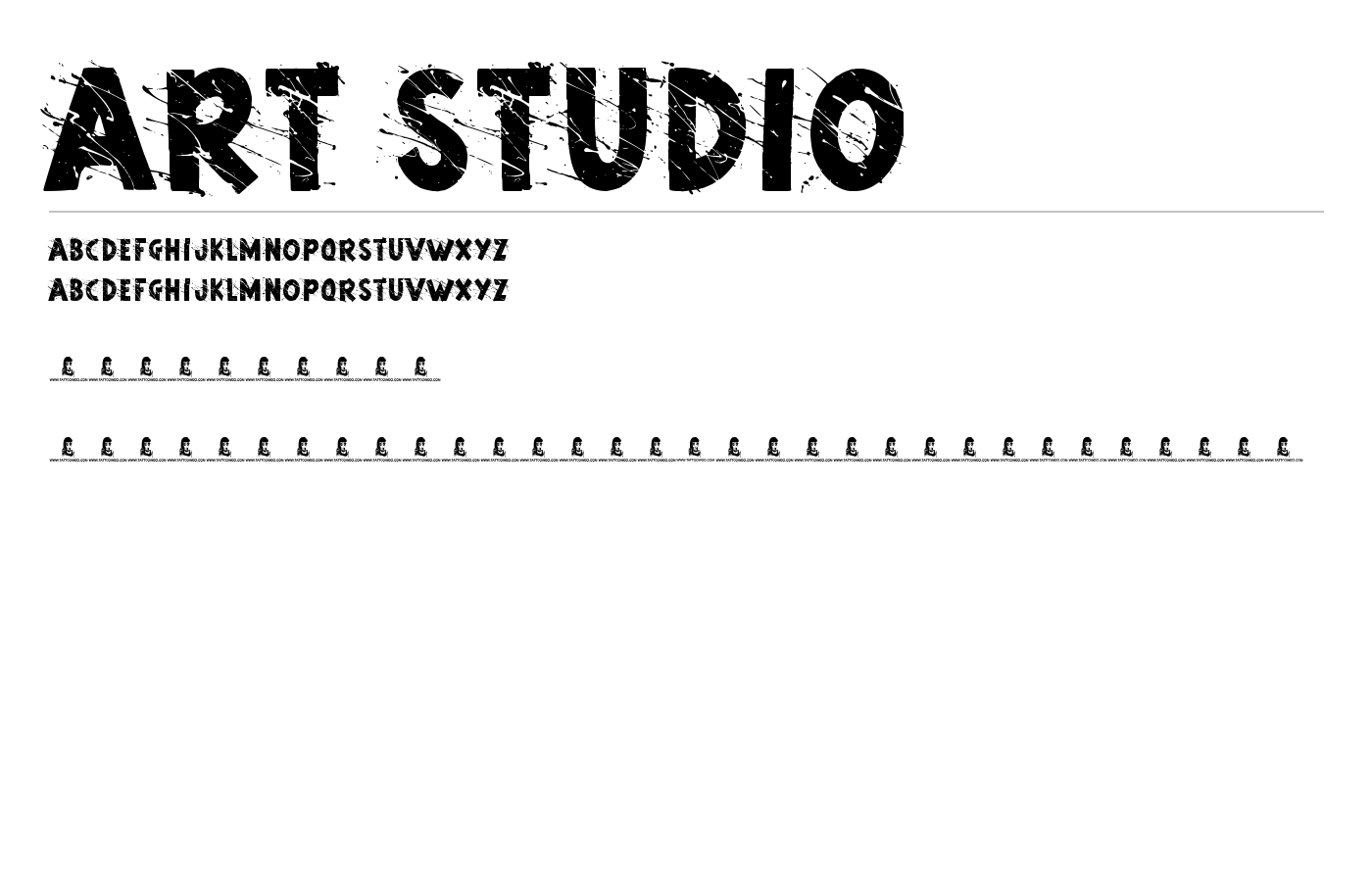
Art Studio Font is a bold, textured sans serif with a distressed, hand-painted feel that adds a raw and creative edge to any design. Its strong, wide letterforms combined with scattered ink splatters make it ideal for artistic, urban, or edgy branding and headlines where a striking visual impact is needed. This font works best for posters, logos, and packaging that aim to communicate energy and originality.
Art Studio Font